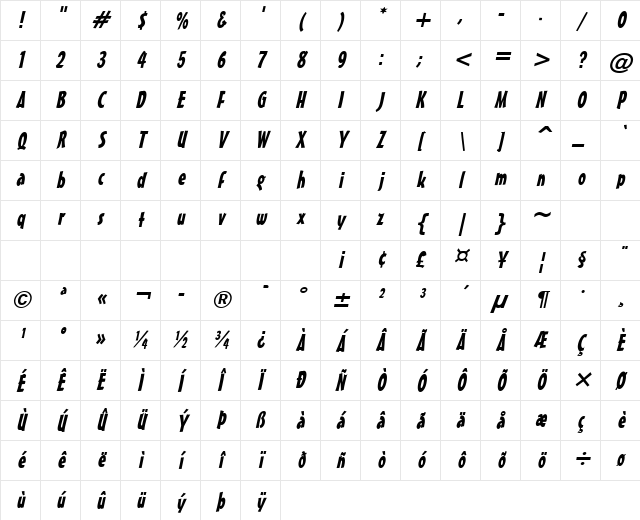
Massey Italic
Massey Family
Massey Italic
Design Context for Massey
Massey is a composed and adaptable typeface that performs quietly and consistently across a wide range of design contexts. The slanted form adds forward momentum and visual energy.
Pro Tip: Use Massey for emphasis, pull quotes, and subheadings where its slanted energy can add rhythm to the layout.